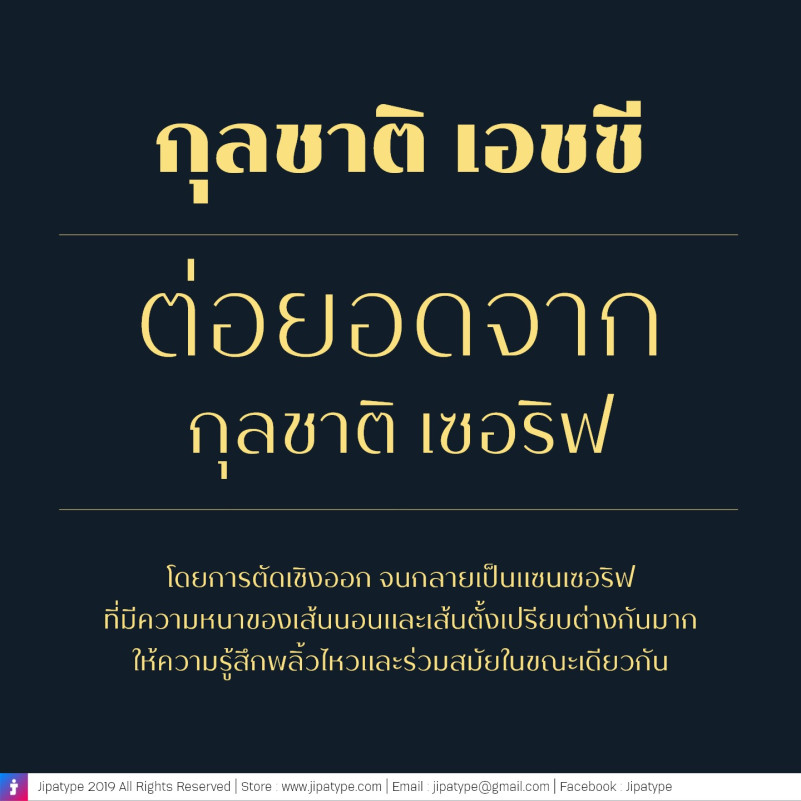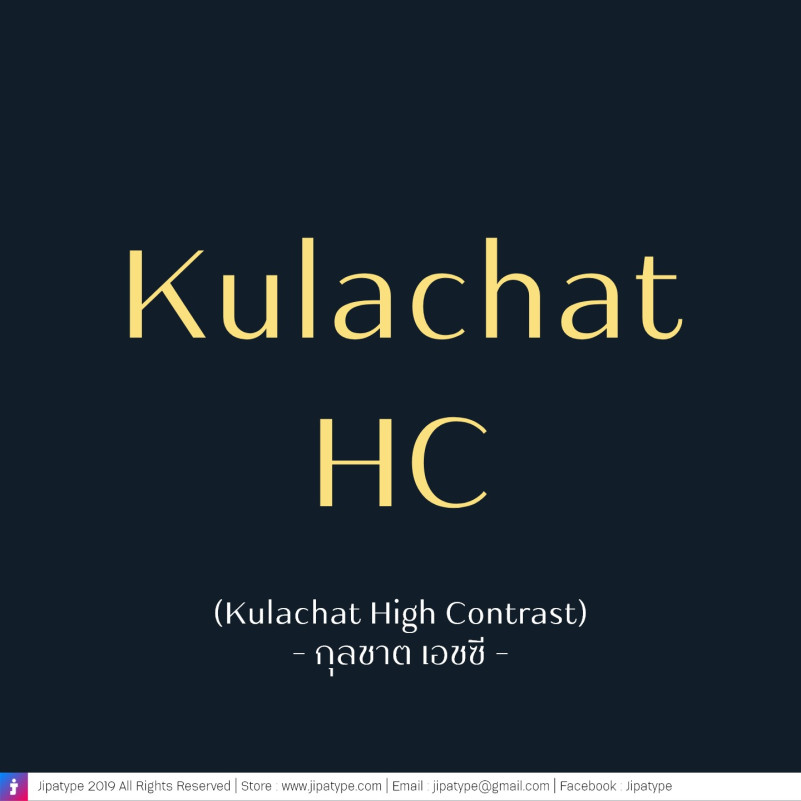
Kulachat HC Font
Kulachat HC Sans Serif Font, This font was created for all forms of business and branding such as clothing, logos, skate boards and others according to your needs.